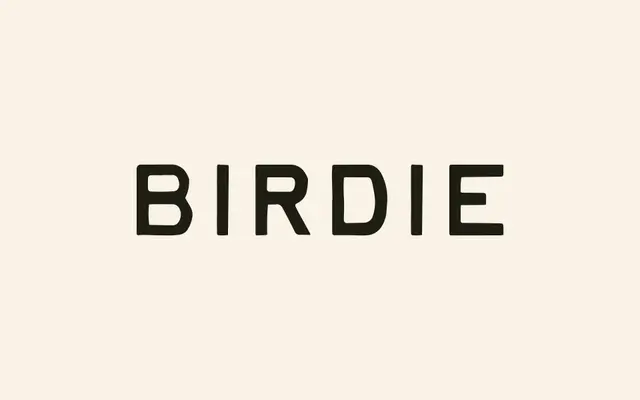
Birdie specimen from Taylor Penton
A single-weight display face with two full sets of contextual alternates across the entire upper and lowercase alphabet and digits, designed for a hand-drawn yet modern feel.
Sold in a 'Legendary Version' update, Birdie ships with two complete sets of contextual alternates for every letter and numeral, giving layouts natural variation without manually swapping glyphs. The 207-glyph character set covers extensive Western European languages including Icelandic and Welsh. Aimed at logos, packaging and branding work where a casual, approachable tone is wanted.
The page describes a 'handmade modern vibe' and the font is sold as a display typeface with contextual alternates for expressive use, placing it firmly in the display category with a handcrafted character.